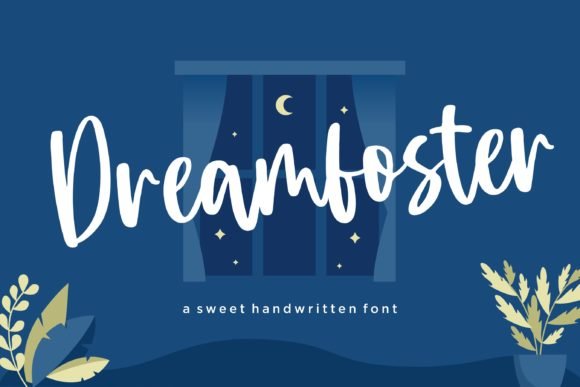
Dreamfoster is a cute and sweet handwritten font.
Its casual charm makes it appear wonderfully down-to-earth, readable and, ultimately, incredibly versatile Dreamfoster will look outstanding in any context, whether it’s being used on busy backgrounds or as a standalone headline.